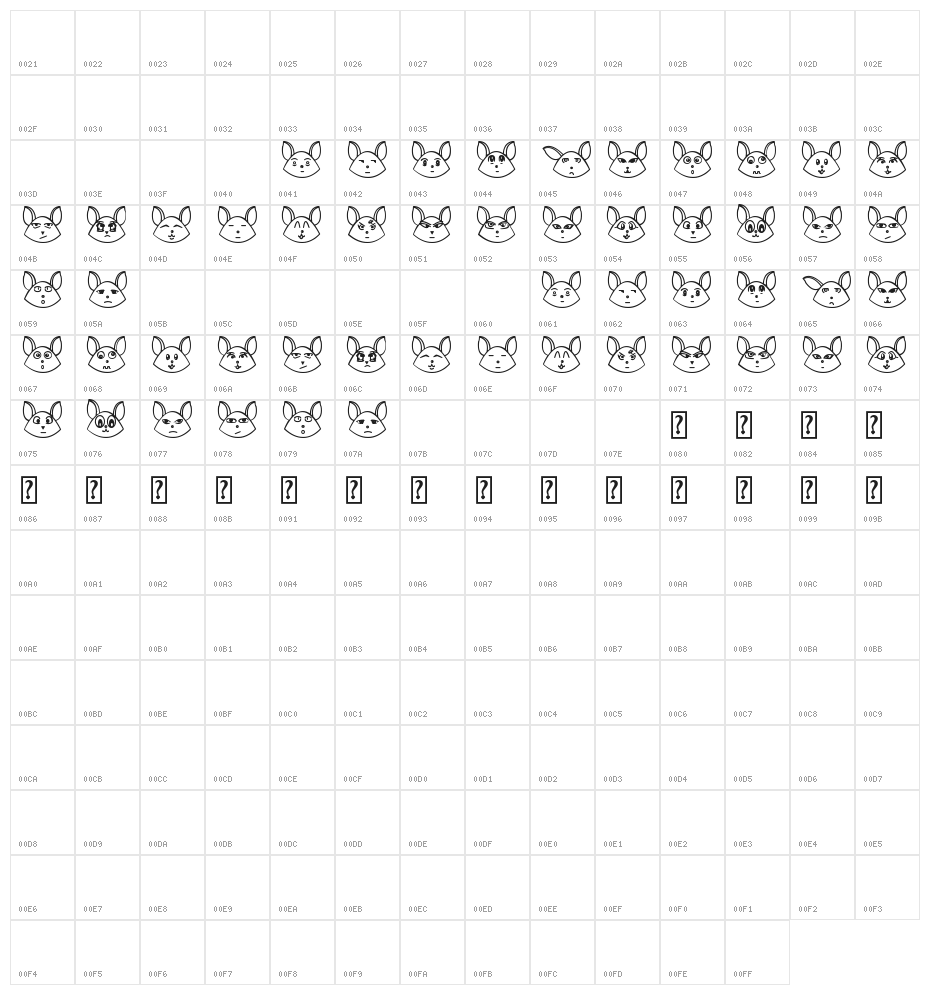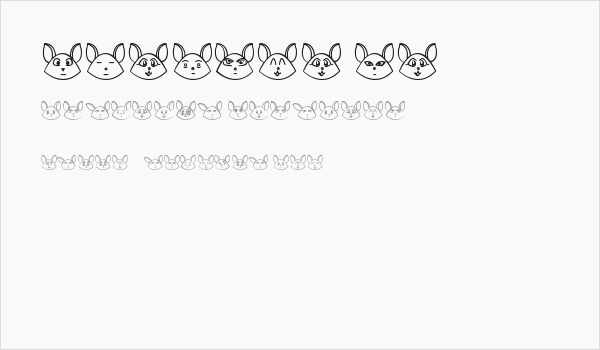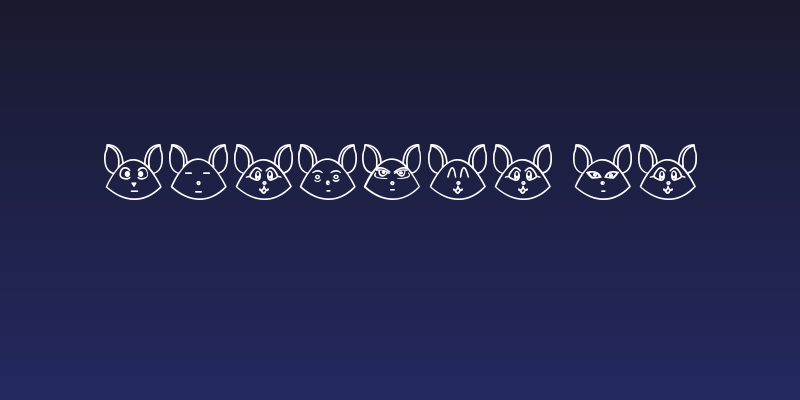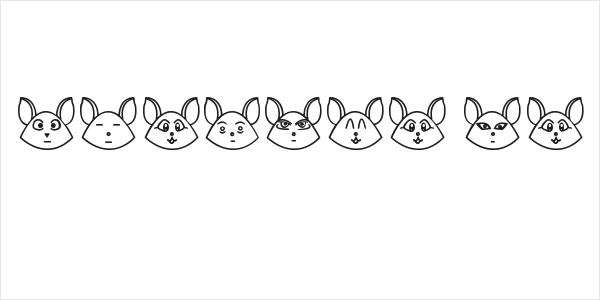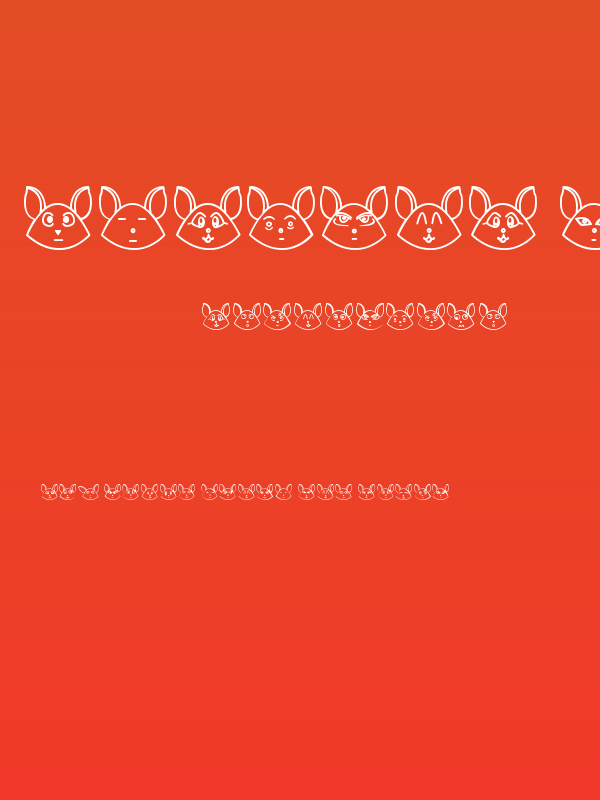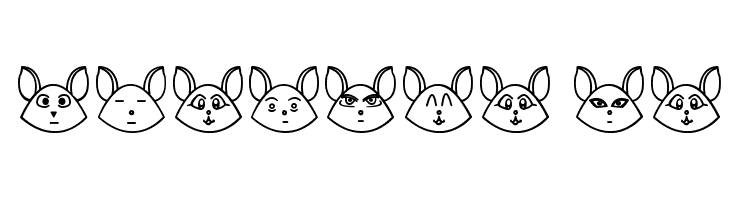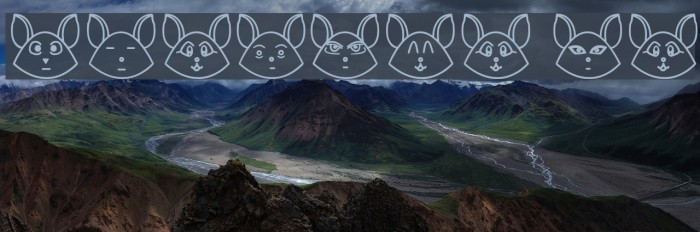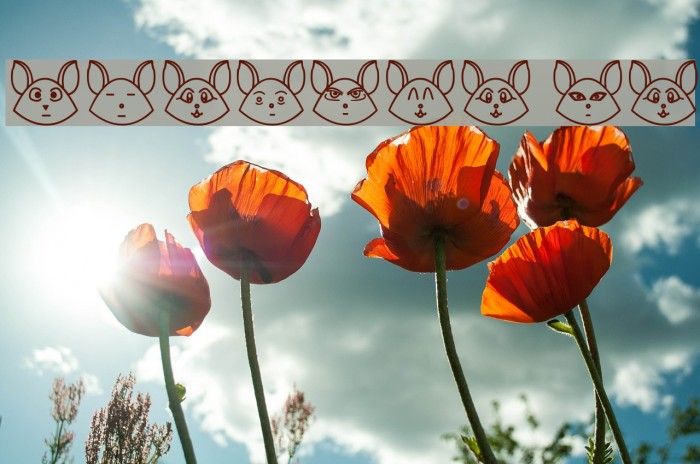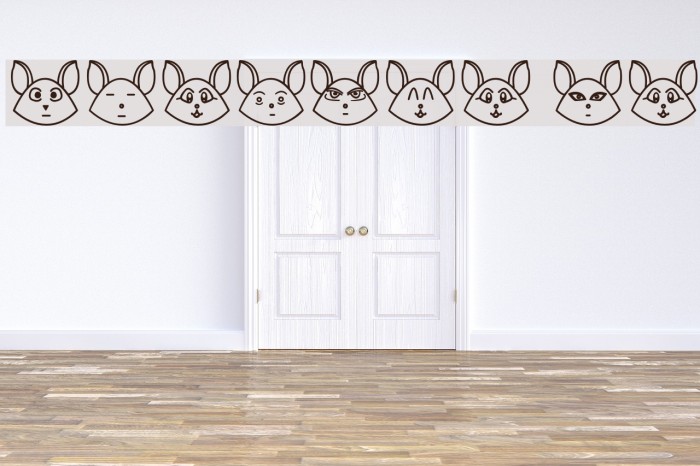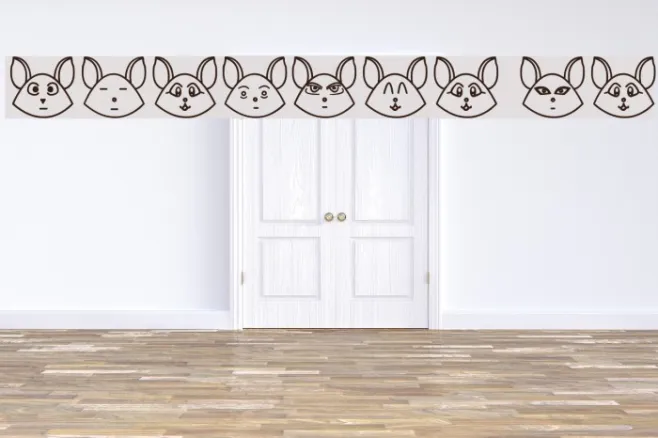
UnTaRot ST Font
UnTaRot ST Description
A playful decorative font where each character is represented by a stylized animal face with unique expressions and features, outlined in black with consistent line thickness and simple geometric shapes.
| Overall Style | Playful, Decorative, Whimsical |
| Use Case | Logos, Headlines, Posters, Children's materials |
| Proposed Projects | Children's books, educational materials, playful branding, party invitations, greeting cards, and themed posters. |